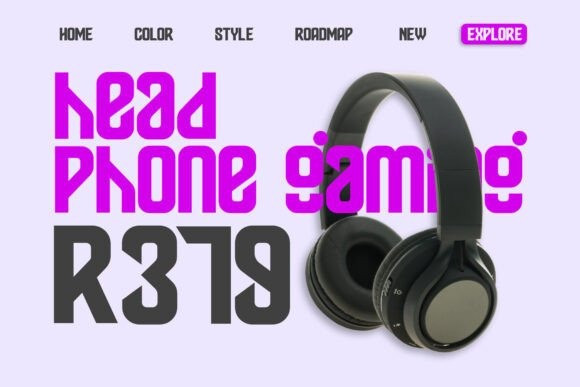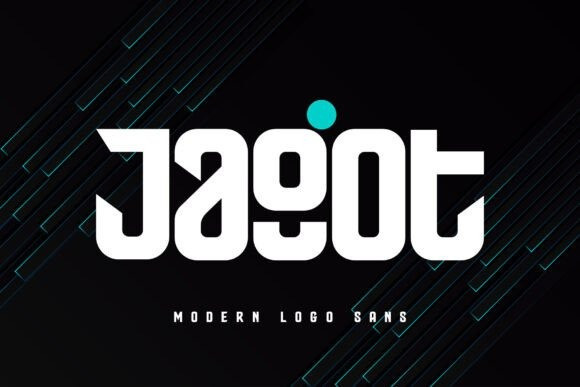
Jagot Font
Jagot Font – Modern Logo Sans is a modern and versatile font designed for contemporary branding. With its clean lines and balanced proportions, this typeface is perfect for creating impactful logos, headlines, and editorial designs. Its minimalist style ensures readability while exuding sophistication.